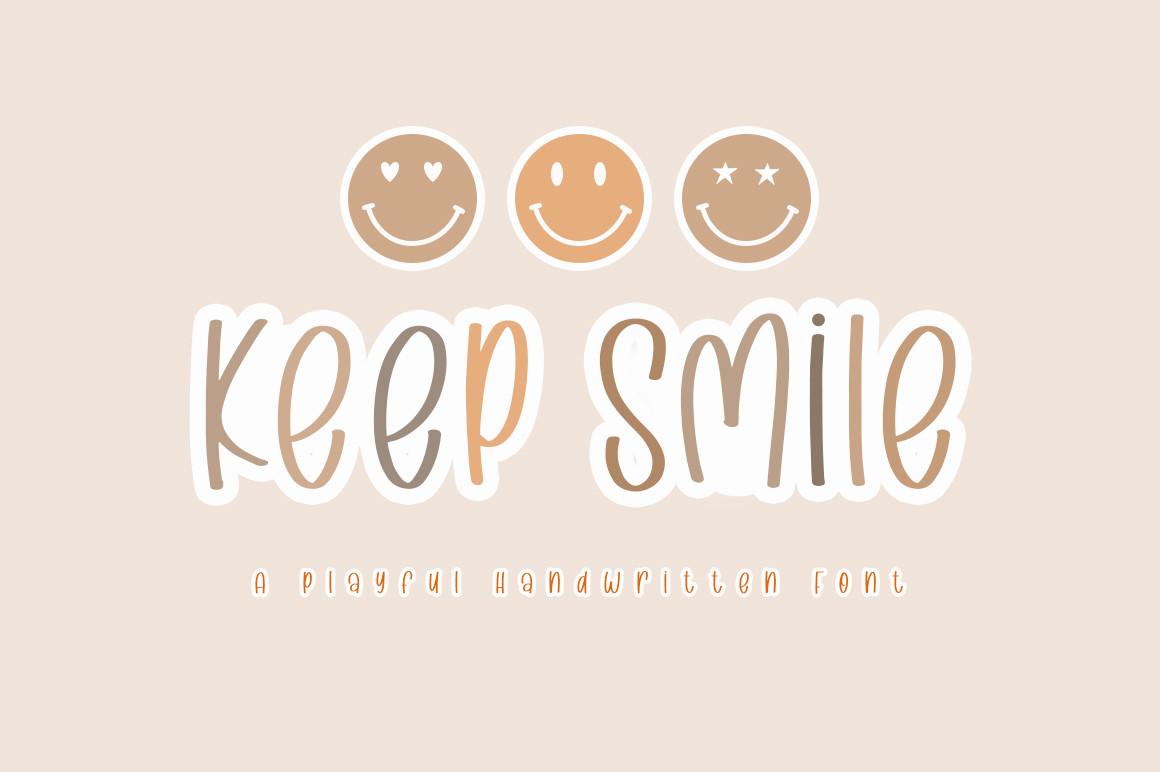
Keep Smile is a lovely and delicate script font that exudes playfulness and charm. This font was particularly crafted for those who need a beautiful and refreshing look to their designs.